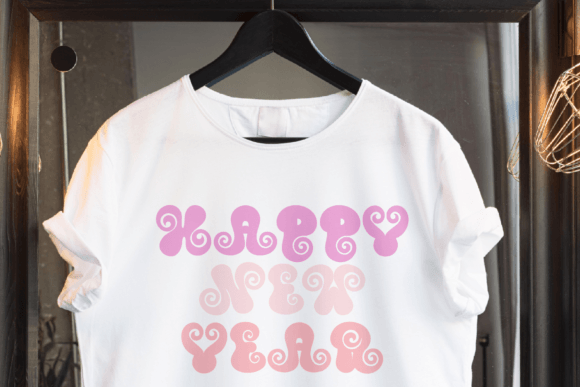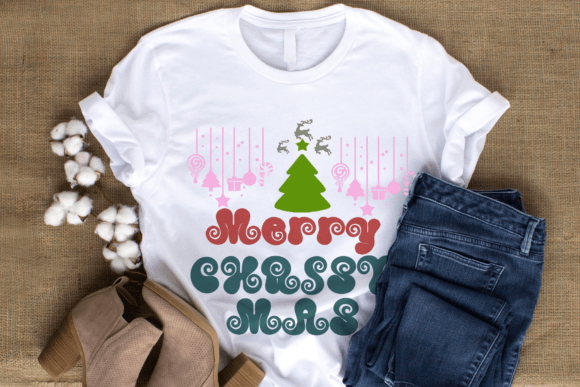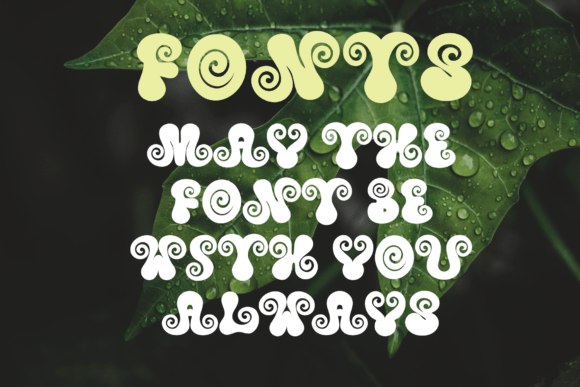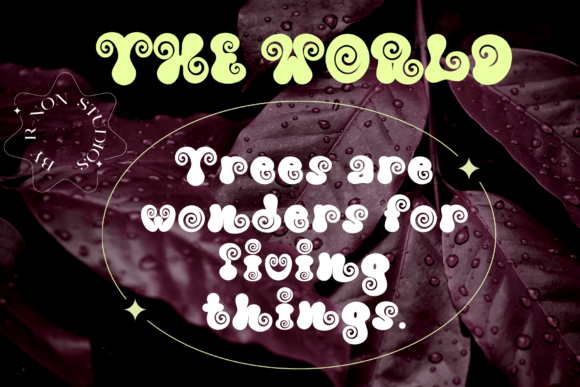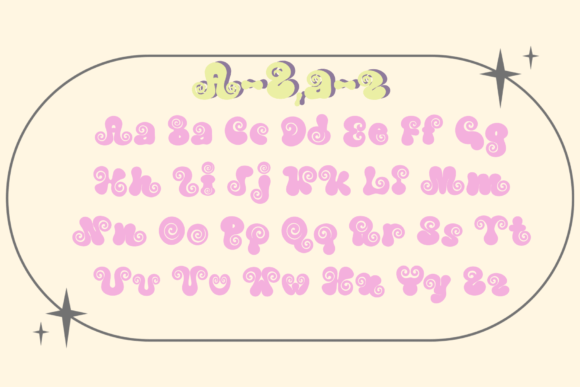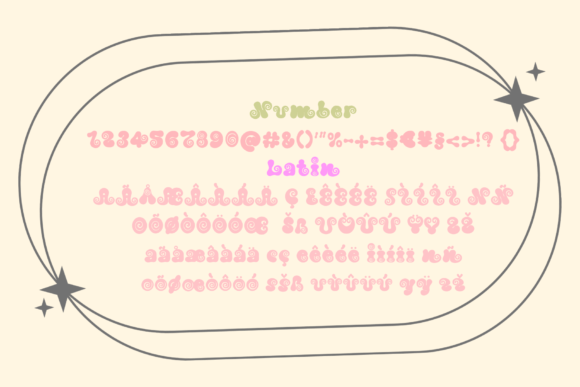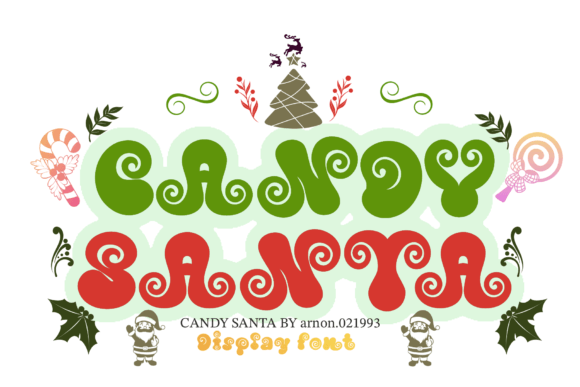
Candy Santa Font: The Sweetest Addition to Your Font Library This Holiday Season
As the holiday season approaches, designers and crafters are on the lookout for festive and fun fonts to add a touch of magic to their creations. If you’re searching for a font that’s sure to make your projects stand out, look no further than the Candy Santa Font. This gorgeous decorative font is the perfect addition to your font library, and we’re excited to share its features and benefits with you.
A Festive Font that’s Sure to Impress
Candy Santa Font is a stunning decorative font that’s specifically designed to capture the spirit of the holiday season. Its playful and whimsical design makes it perfect for a wide range of projects, from holiday cards and invitations to social media graphics and craft projects. Whether you’re a designer, crafter, or DIY enthusiast, this font is sure to become a favorite in your collection.
What Makes Candy Santa Font So Special?
So, what sets Candy Santa Font apart from other festive fonts? Here are just a few reasons why this font is an incredible asset to your font library:
- Unique and eye-catching design: Candy Santa Font features a one-of-a-kind design that’s sure to grab attention. Its bold and colorful letters are perfect for creating festive and fun projects that stand out from the crowd.
- Versatile and adaptable: Despite its holiday theme, Candy Santa Font is versatile enough to be used for a wide range of projects, from Christmas cards and decorations to social media graphics and branding materials.
- High-quality and crisp: Candy Santa Font is a high-quality font that’s designed to look crisp and clear, even at large sizes. This makes it perfect for printing and digital use.
How to Use Candy Santa Font in Your Projects
Now that you know why Candy Santa Font is such an amazing addition to your font library, let’s talk about how to use it in your projects. Here are a few ideas to get you started:
- Holiday cards and invitations: Use Candy Santa Font to create festive and fun holiday cards and invitations that are sure to impress your friends and family.
- Social media graphics: Add a touch of holiday cheer to your social media graphics with Candy Santa Font. Perfect for creating festive Facebook posts, Twitter headers, and Instagram stories.
- Craft projects: This font is perfect for crafters who love to make handmade gifts and decorations. Use it to create personalized gift tags, holiday-themed scrapbook pages, and more.
- Branding and marketing materials: If you’re looking for a festive font to use in your branding and marketing materials, Candy Santa Font is a great choice. Use it to create eye-catching holiday promotions, flyers, and brochures.
Tips and Tricks for Getting the Most Out of Candy Santa Font
Here are a few tips and tricks to help you get the most out of Candy Santa Font:
- Experiment with different colors: While Candy Santa Font looks amazing in traditional holiday colors like red and green, don’t be afraid to experiment with different colors to create a unique look.
- Pair it with other fonts: Try pairing Candy Santa Font with other fonts to create a unique and eye-catching look. A simple sans-serif font can provide a nice contrast to the playful design of Candy Santa Font.
- Use it sparingly: While Candy Santa Font is a beautiful font, it can be overwhelming if used too much. Use it sparingly to add a touch of holiday cheer to your projects.
| Author | arnon.021993 |
Candy Santa Font is a gorgeous decorative font that’s sure to become a favorite in your font library. Its unique and eye-catching design makes it perfect for a wide range of projects, from holiday cards and invitations to social media graphics and craft projects. With its versatility, ease of use, and high-quality design, Candy Santa Font is an incredible asset to any designer or crafter. So why wait? Download Candy Santa Font today and start adding a touch of holiday magic to your projects!